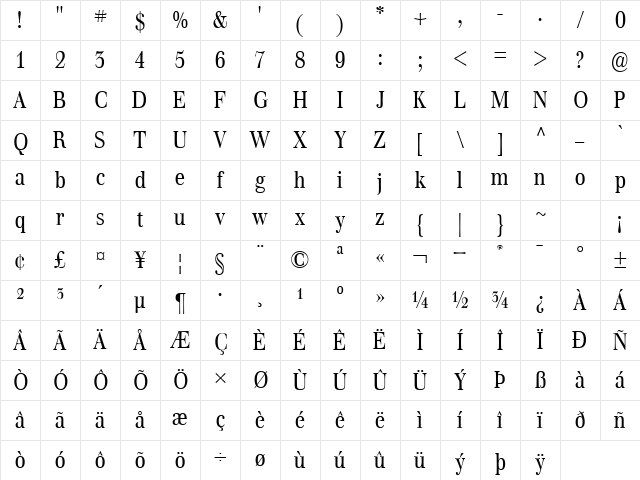
Walburn Light Free Font
Walburn Light
Design Context for Walburn
Walburn is a composed and adaptable typeface that performs quietly and consistently across a wide range of design contexts. Its slender proportions lend an understated elegance to any composition.